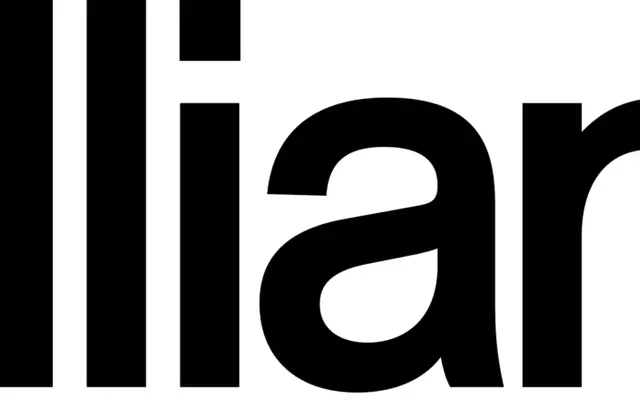
ES Allianz
Extraset · David Mamie · 2010
ES Allianz specimen from Extraset
A grotesque sans with roots in pre-neo-grotesque antique letterforms, drawn by David Mamie with an organic, slightly hand-crafted quality.
Originally drafted in the 2010s by David Mamie with input from Nicola Todeschini, ES Allianz draws on early sans serif forms that preceded the polished neutrality of the neo-grotesque tradition. Seven weights from Extralight to Extrabold come with italics, and the character set includes a generous range of alternates such as single-storey 'a', a swing-legged 'R', alternate digits and various symbol sets. The result sits between functional modernism and a more undogmatic, expressive approach to sans serif letterforms.
Described as inspired by early sans serifs that preceded the neo-grotesque style, with organic and subtly hand-drawn qualities; sits between pre-grotesque antique letterforms and modernist functional type.